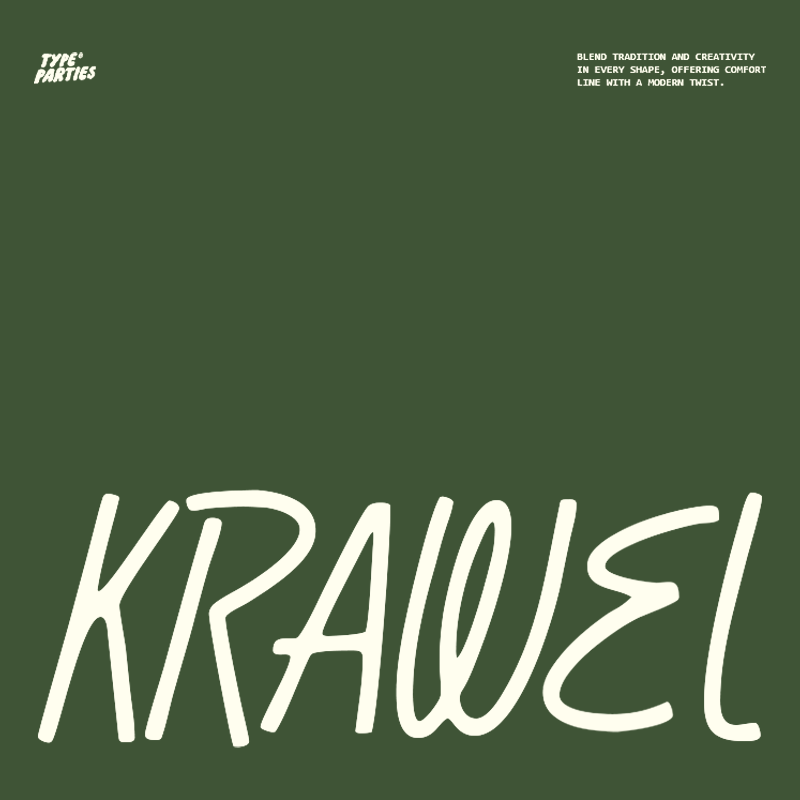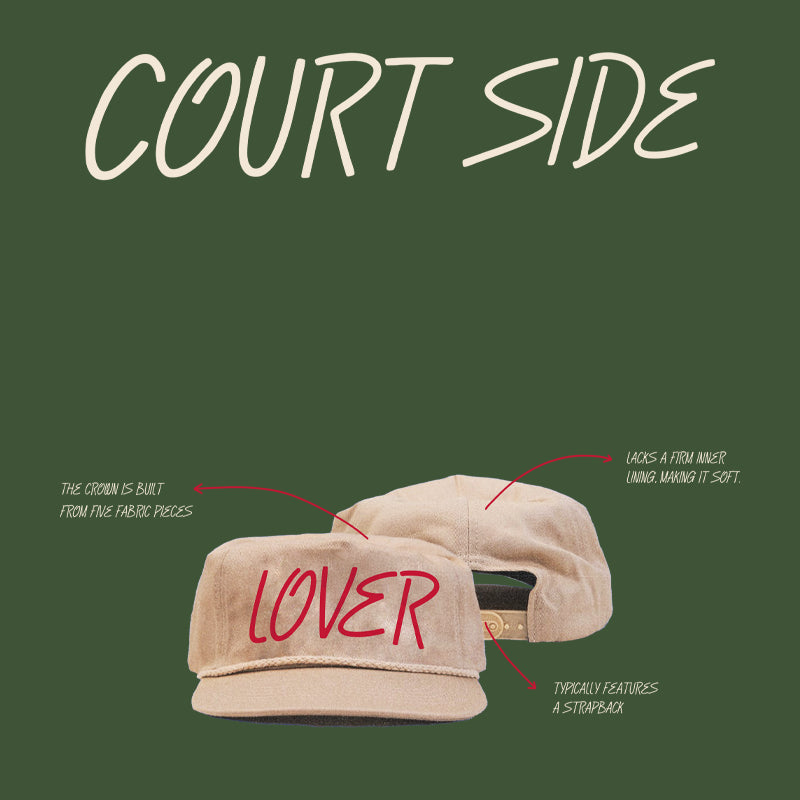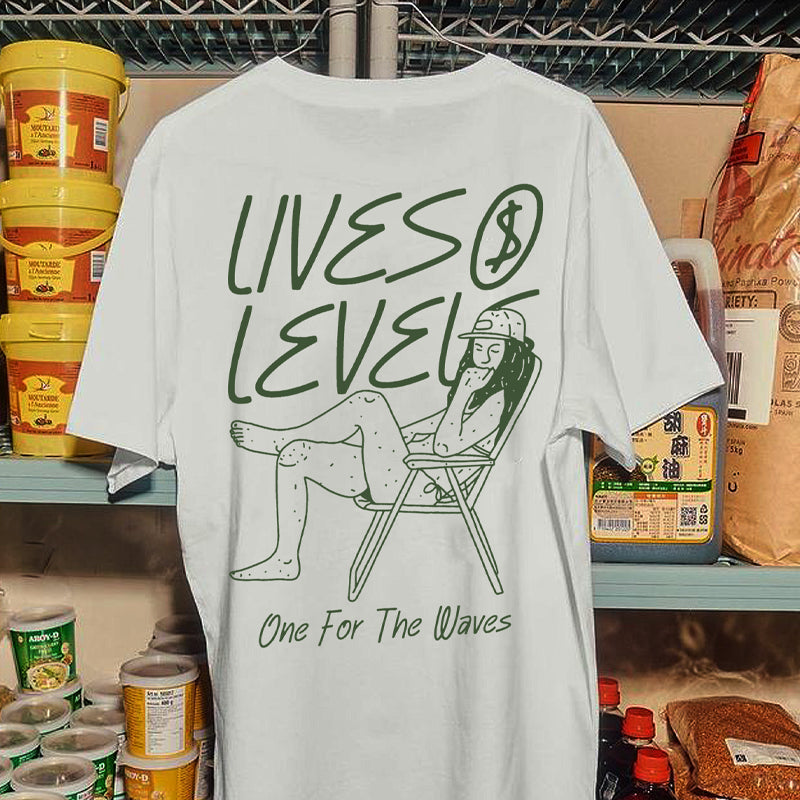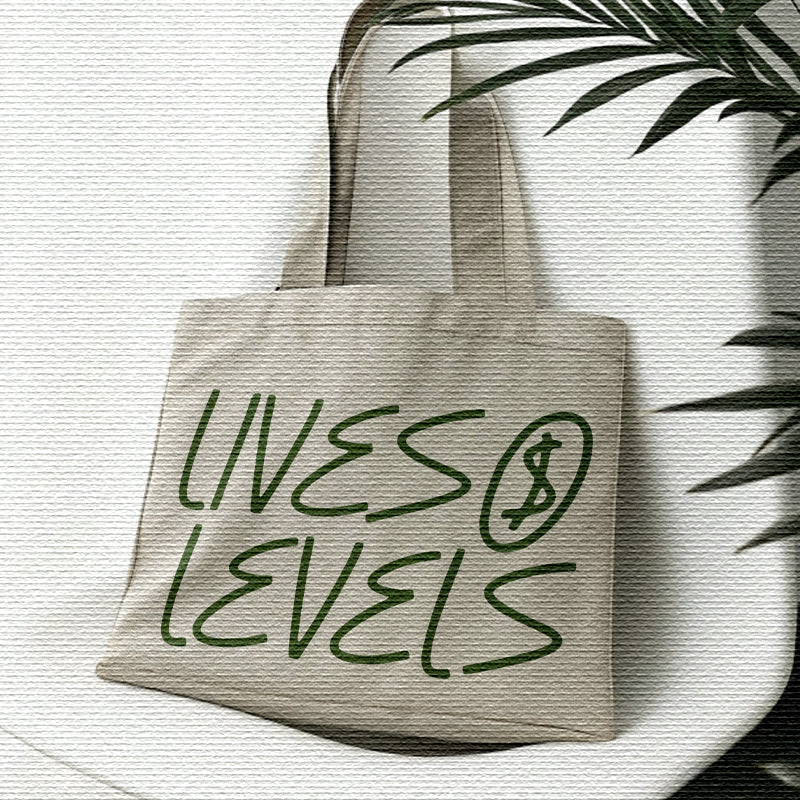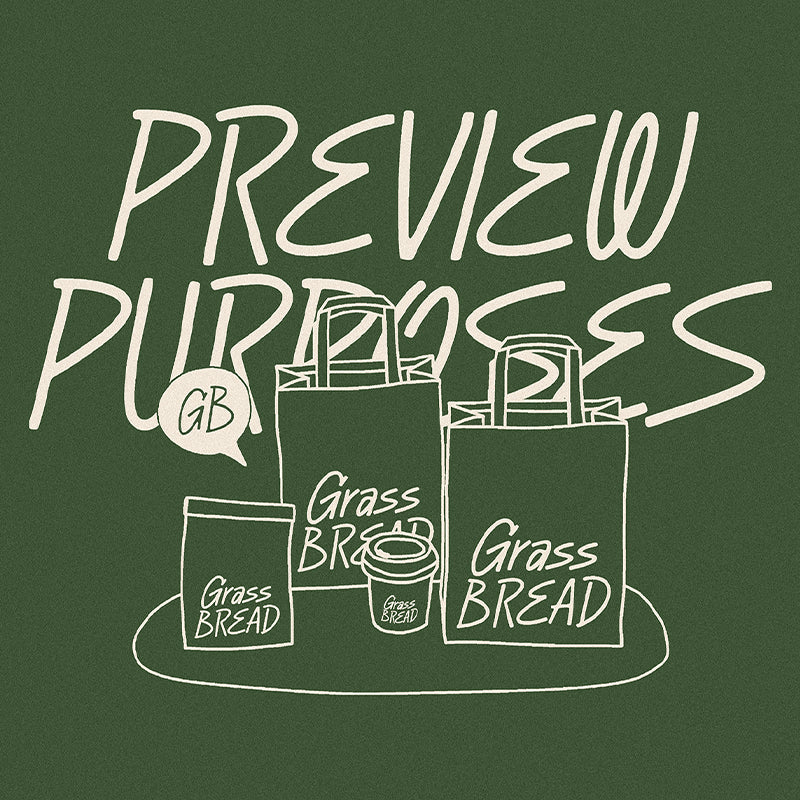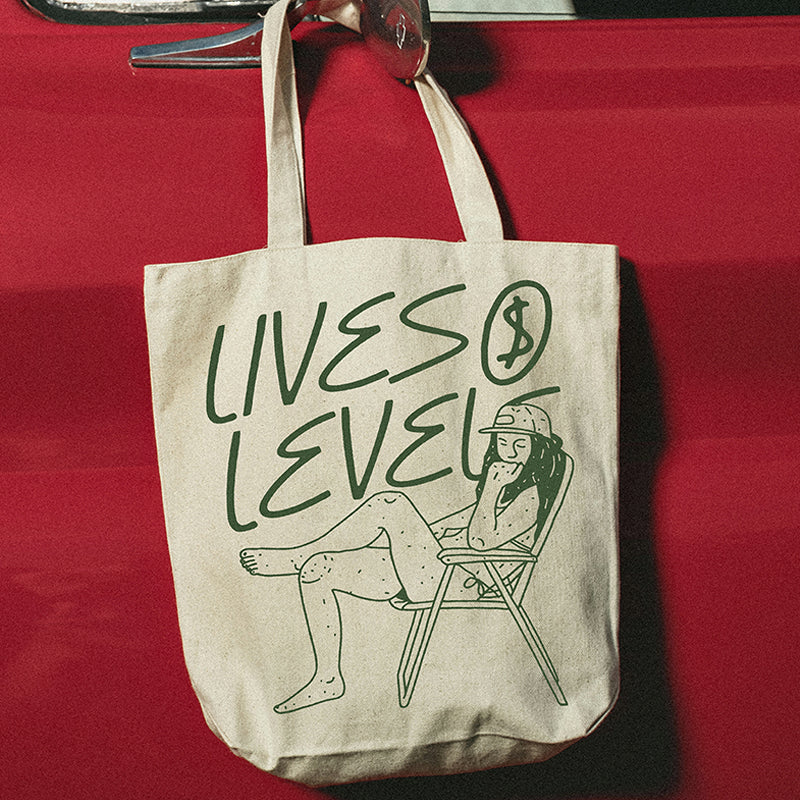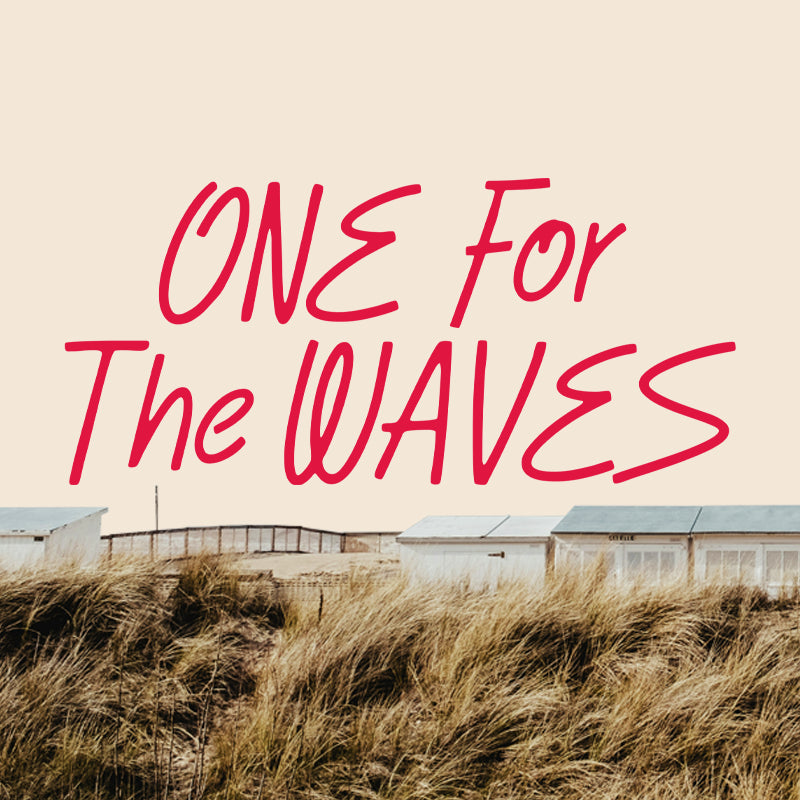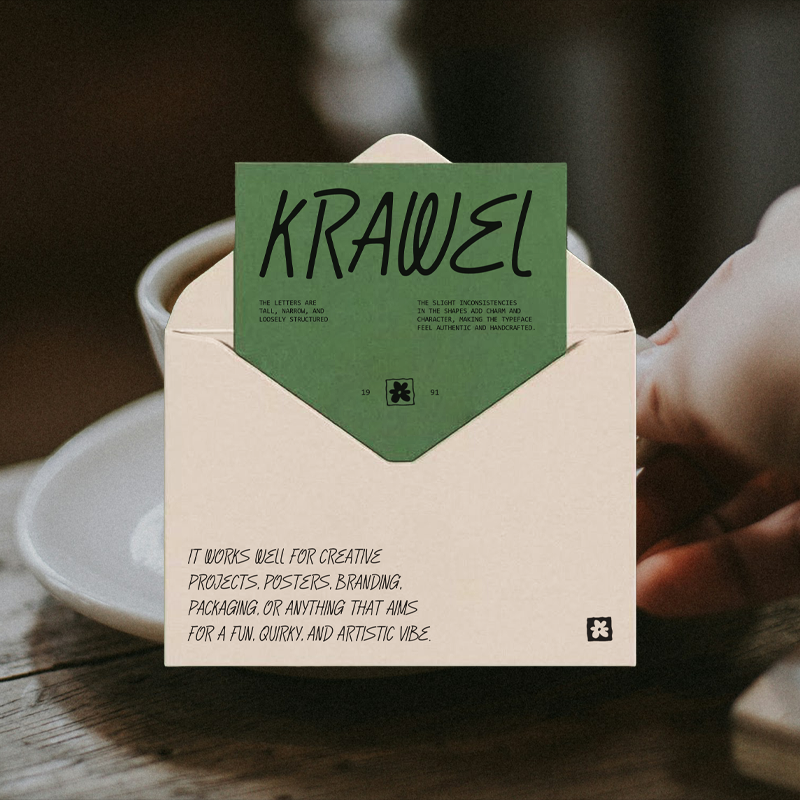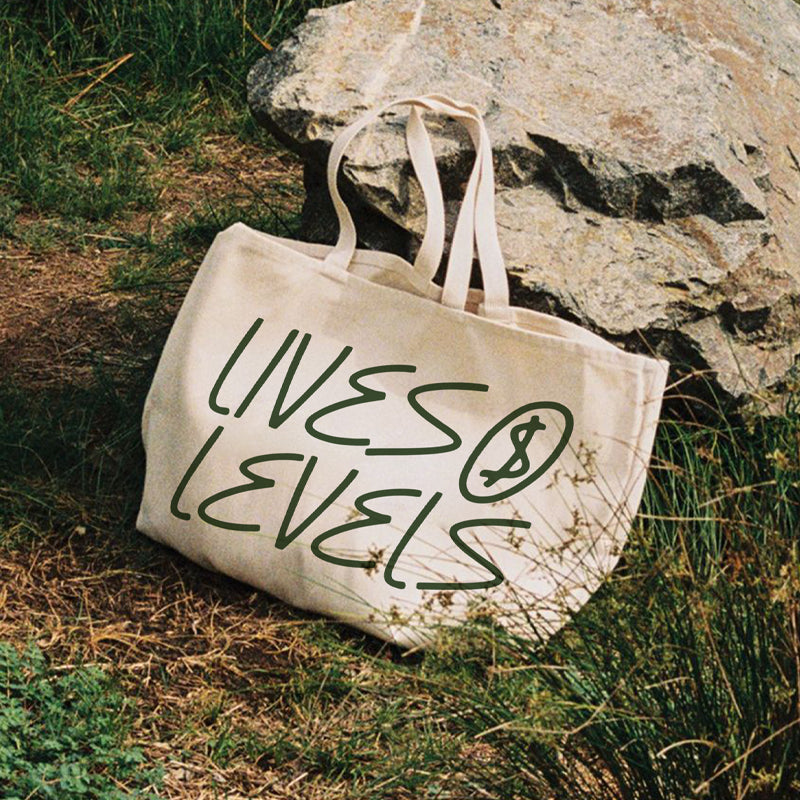
Krawel - Handwritten Monoline Font
Krawel is a handwritten monoline font featuring tall, narrow letters with a playful and slightly irregular style. Its organic flow and casual strokes provide a friendly appearance, characterized by slight inconsistencies that add authenticity to the typeface.